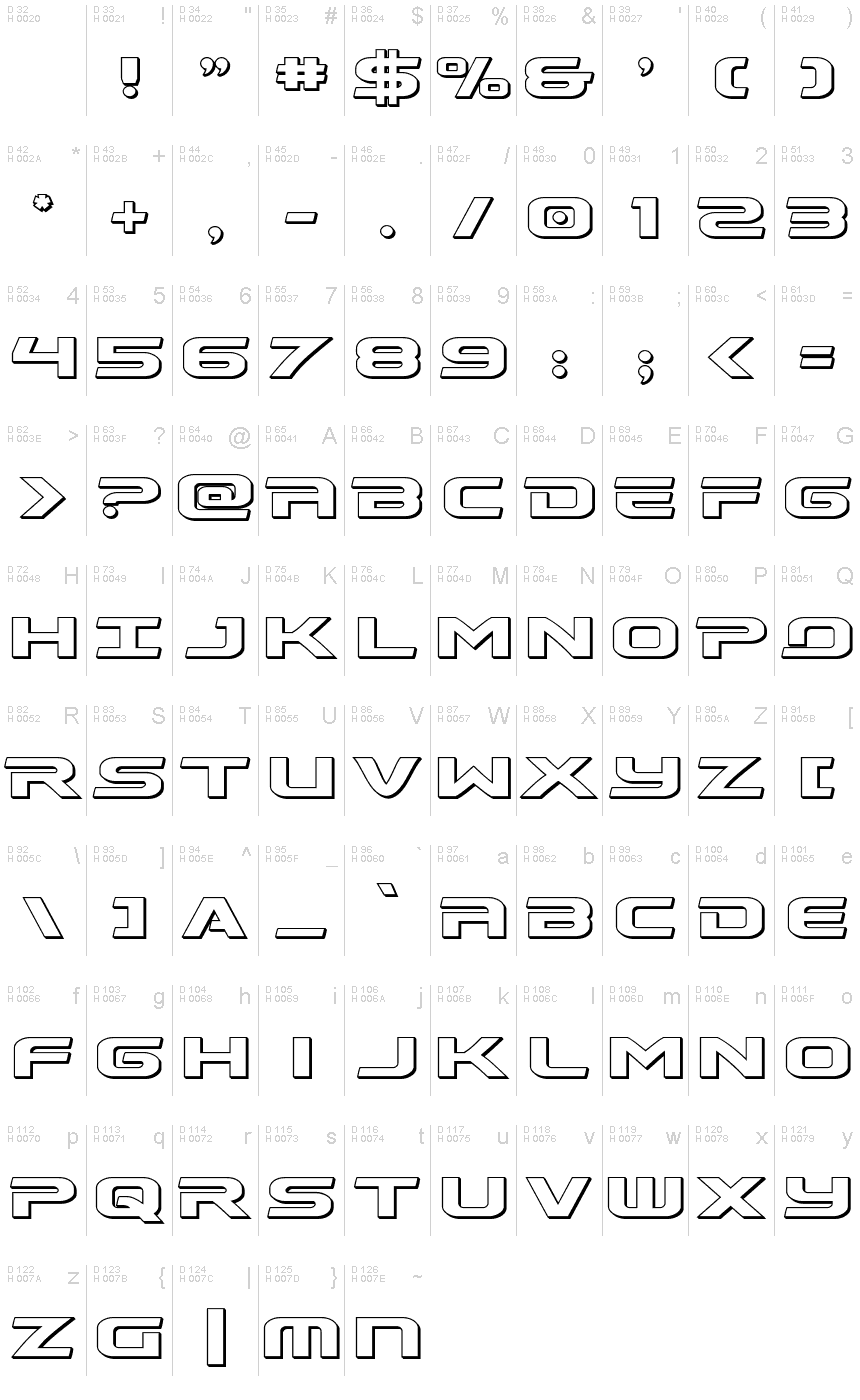
Drius Straight 3D is a bold and eye-catching display font from the renowned designer, Iconian Fonts. With its futuristic 3D style, this font adds a touch of modernity and sophistication to any project.
Its extra-expanded width provides a unique visual impact, making it perfect for attention-grabbing headlines, logos, and branding materials. Whether you're working on sci-fi movie titles, gaming graphics, or technology-related designs, Drius Straight 3D is the ideal choice to bring your creations to life with a bold and futuristic edge.